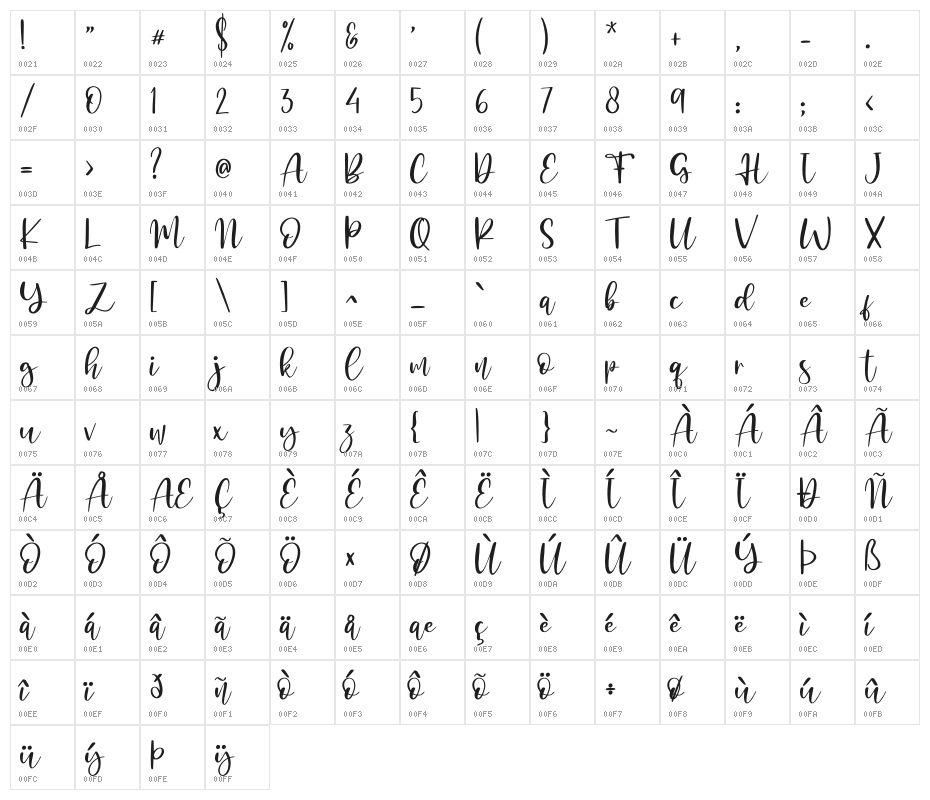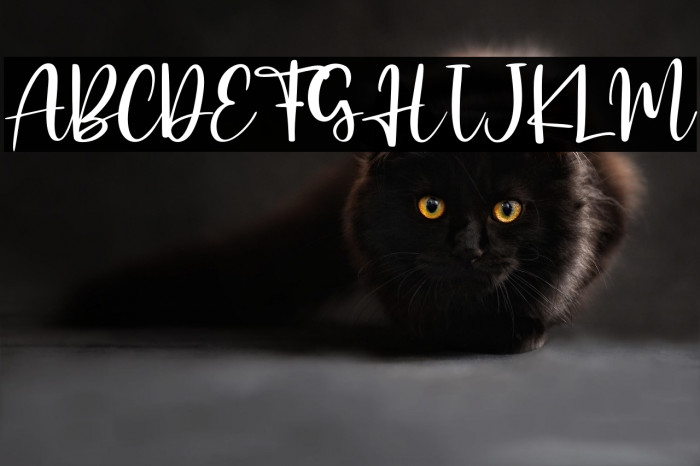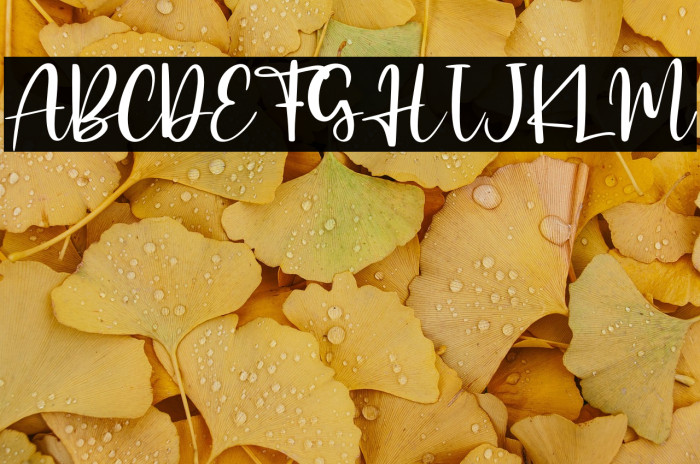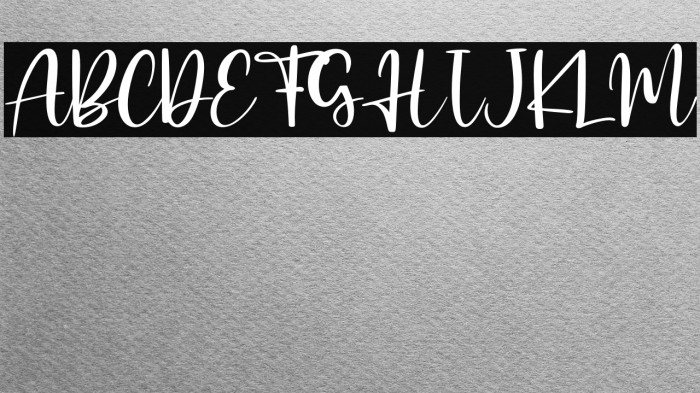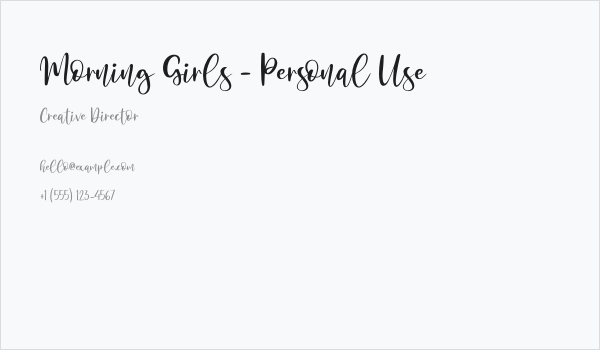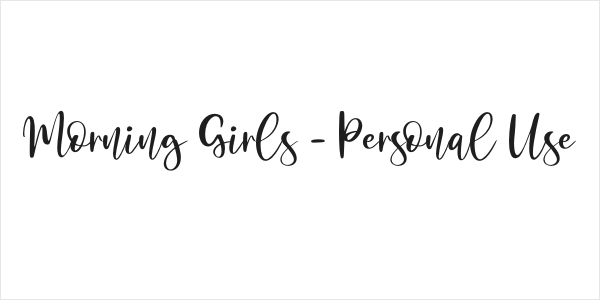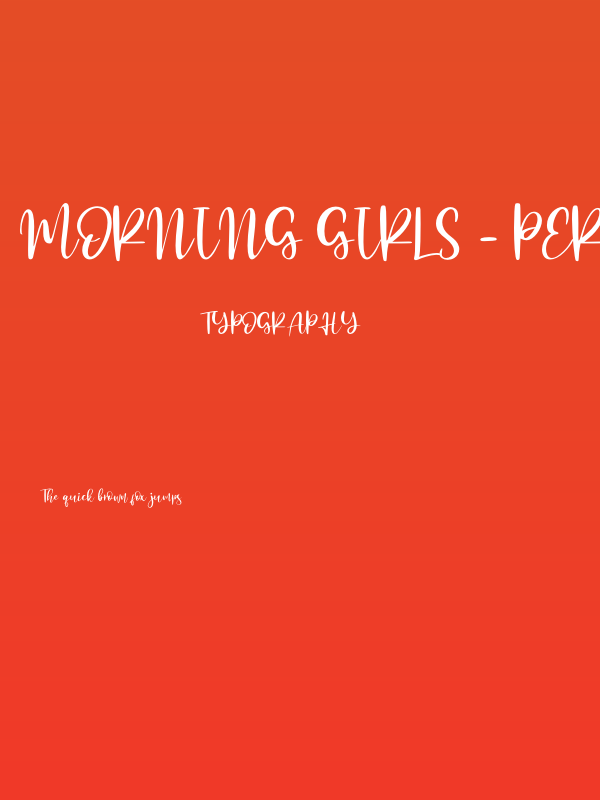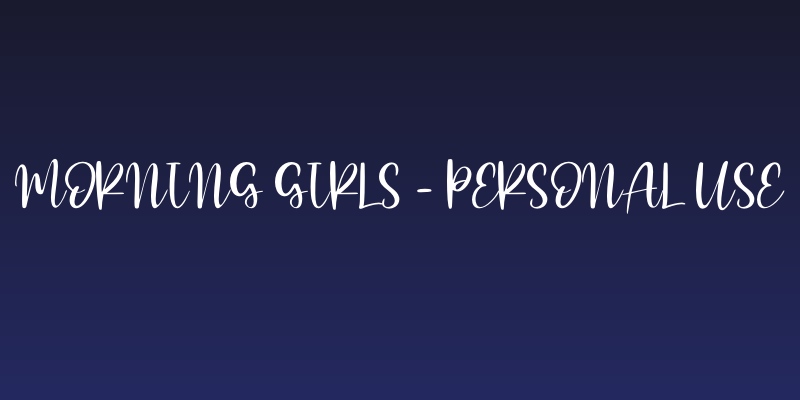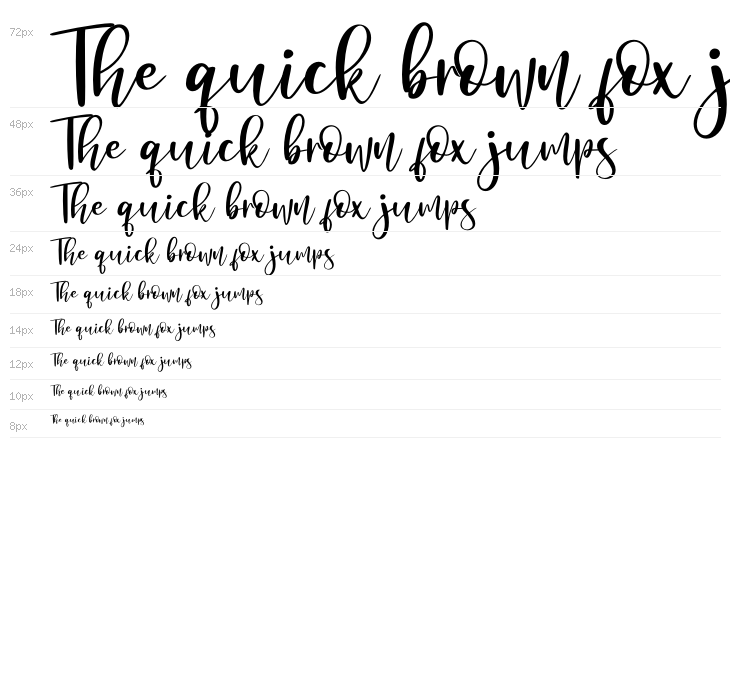
Morning Girls - Personal Use Font
Morning Girls - Personal Use Description
This font features a lively and expressive script style, characterized by its flowing, cursive letterforms. The uppercase letters are bold and dynamic, with a playful flair that adds a sense of movement and energy. The lowercase letters maintain a consistent style, with smooth curves and loops that create a harmonious and cohesive look. The numerals are equally stylish, complementing the overall aesthetic with their elegant design. Special characters are thoughtfully integrated, enhancing the font's versatility. This font is perfect for projects that require a personal and artistic touch, offering a unique blend of sophistication and creativity.